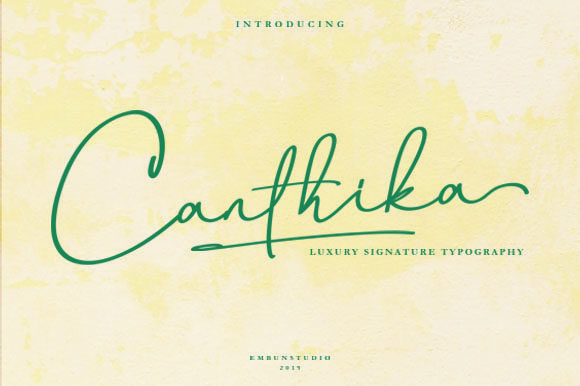
Discover the Elegance of Canthika Font: A Modern Script for Creative Minds
Are you a designer, crafter, or simply a typography enthusiast looking for a font that embodies both relaxation and beauty? Look no further than Canthika, an incredibly relaxed and beautiful script that’s taking the design world by storm. In this article, we’ll dive into the world of Canthika, exploring its modern approach to design, its unique features, and how you can incorporate it into your creative projects.
The Birth of Canthika: A Modern Script with a Relaxed Vibe
Canthika is a script font that exudes a sense of calmness and serenity, making it perfect for designs that require a touch of elegance and sophistication. Its modern approach to design sets it apart from traditional scripts, offering a fresh and unique aesthetic that’s both versatile and eye-catching. With Canthika, you can add a touch of personality to your designs, whether it’s a logo, branding material, or a craft project.
What Makes Canthika So Special?
So, what makes Canthika stand out from the crowd? Here are a few key features that make this font a must-have for designers and crafters:
- Relaxed and Fluid Lines: Canthika’s script is characterized by its smooth, flowing lines that give it a relaxed and natural feel. This makes it perfect for designs that require a touch of warmth and personality.
- Modern Aesthetic: Canthika’s modern approach to design ensures that it looks fresh and contemporary, making it ideal for designs that require a cutting-edge look.
- Versatility: Canthika is a versatile font that can be used for a wide range of design projects, from logos and branding materials to craft projects and digital media.
- Elegant and Sophisticated: Canthika’s elegant and sophisticated design makes it perfect for designs that require a touch of luxury and refinement.
How to Use Canthika in Your Design Projects
Now that we’ve explored the features of Canthika, let’s talk about how you can incorporate it into your design projects. Here are a few ideas to get you started:
- Logo Design: Use Canthika to create a unique and memorable logo that reflects your brand’s personality and style.
- Branding Materials: Canthika is perfect for creating branding materials such as business cards, letterheads, and brochures that require a touch of elegance and sophistication.
- Craft Projects: Add a touch of personality to your craft projects, such as handmade cards, gift tags, and scrapbooking pages, with Canthika’s beautiful script.
- Digital Media: Use Canthika in your digital media projects, such as social media graphics, blog posts, and website designs, to add a touch of elegance and refinement.
Tips and Tricks for Working with Canthika
Here are a few tips and tricks to help you get the most out of Canthika:
- Experiment with Font Sizes: Canthika looks great in a variety of font sizes, so don’t be afraid to experiment to find the perfect size for your design.
- Play with Color: Canthika’s elegant design looks great in a range of colors, so try experimenting with different colors to find the perfect match for your design.
- Mix and Match with Other Fonts: Canthika pairs well with a range of other fonts, so try mixing and matching it with other fonts to create a unique and interesting design.
| Font Name | Canthika Font |
| Author | EmbunStudio |
In conclusion, Canthika is an incredibly relaxed and beautiful script that’s perfect for designers and crafters looking for a modern approach to design. With its unique features, versatility, and elegant design, Canthika is a must-have for any creative project. Whether you’re looking to add a touch of personality to your designs or simply want to try something new, Canthika is definitely worth checking out.